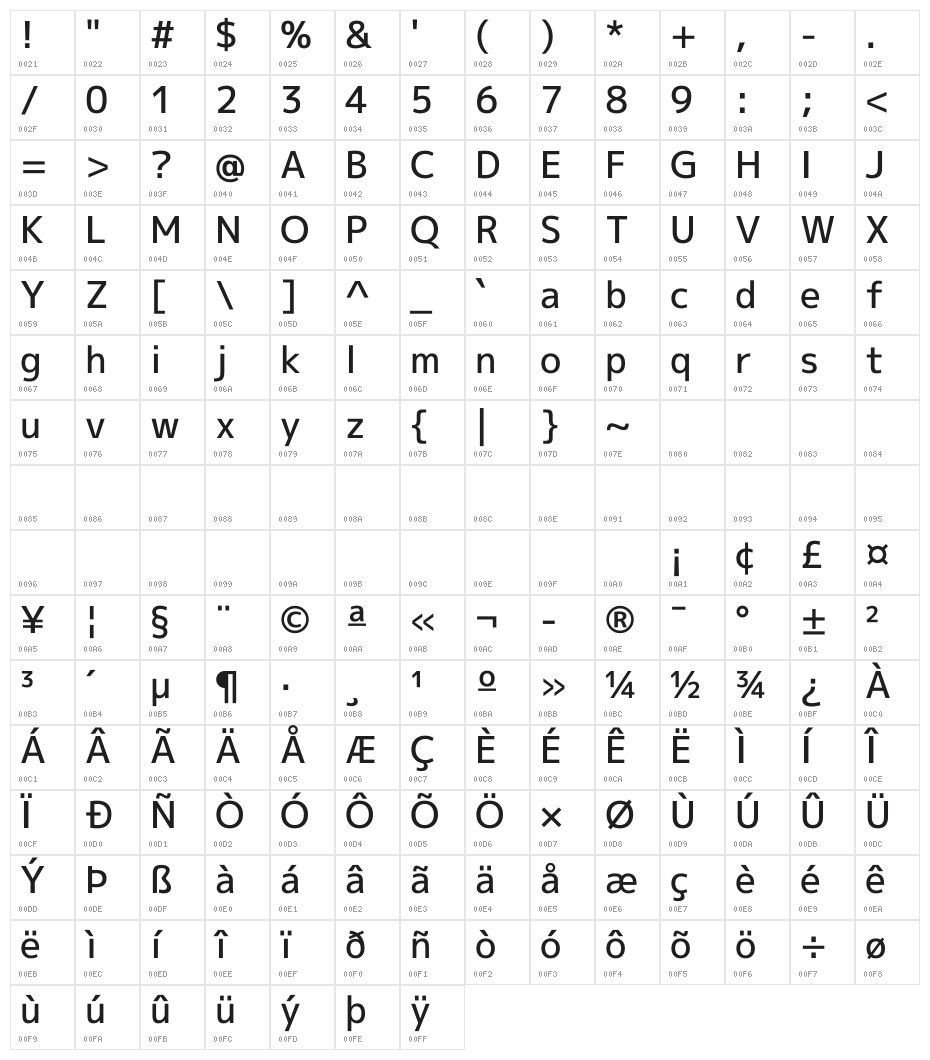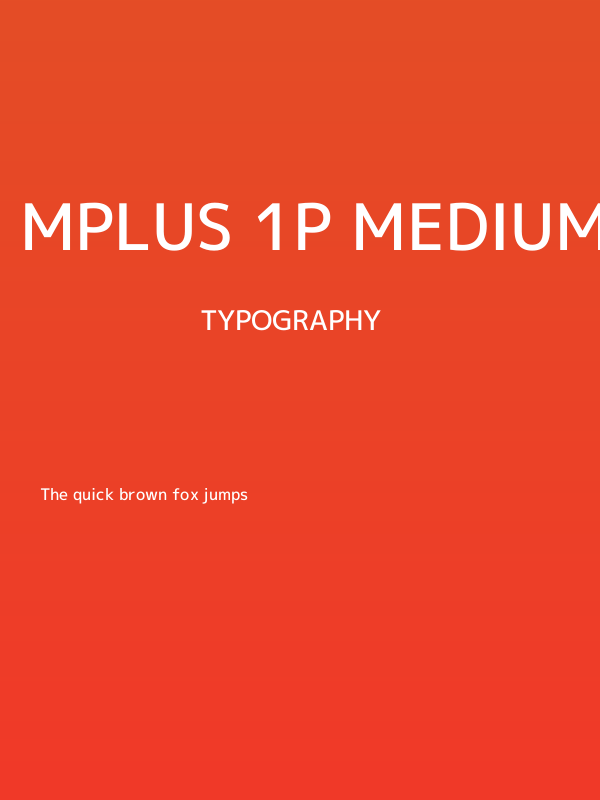
Mplus 1p Medium Font
Mplus 1p Medium Description
This font presents a clean and modern sans-serif style, characterized by its geometric shapes and uniform stroke width. The characters are well-balanced with a consistent height, providing a harmonious appearance. The uppercase letters are bold and assertive, while the lowercase letters maintain a friendly and approachable look. The numerals are clear and legible, making them suitable for various applications. Special characters are well-defined, enhancing the font's versatility. The overall design is minimalistic, making it ideal for contemporary projects.